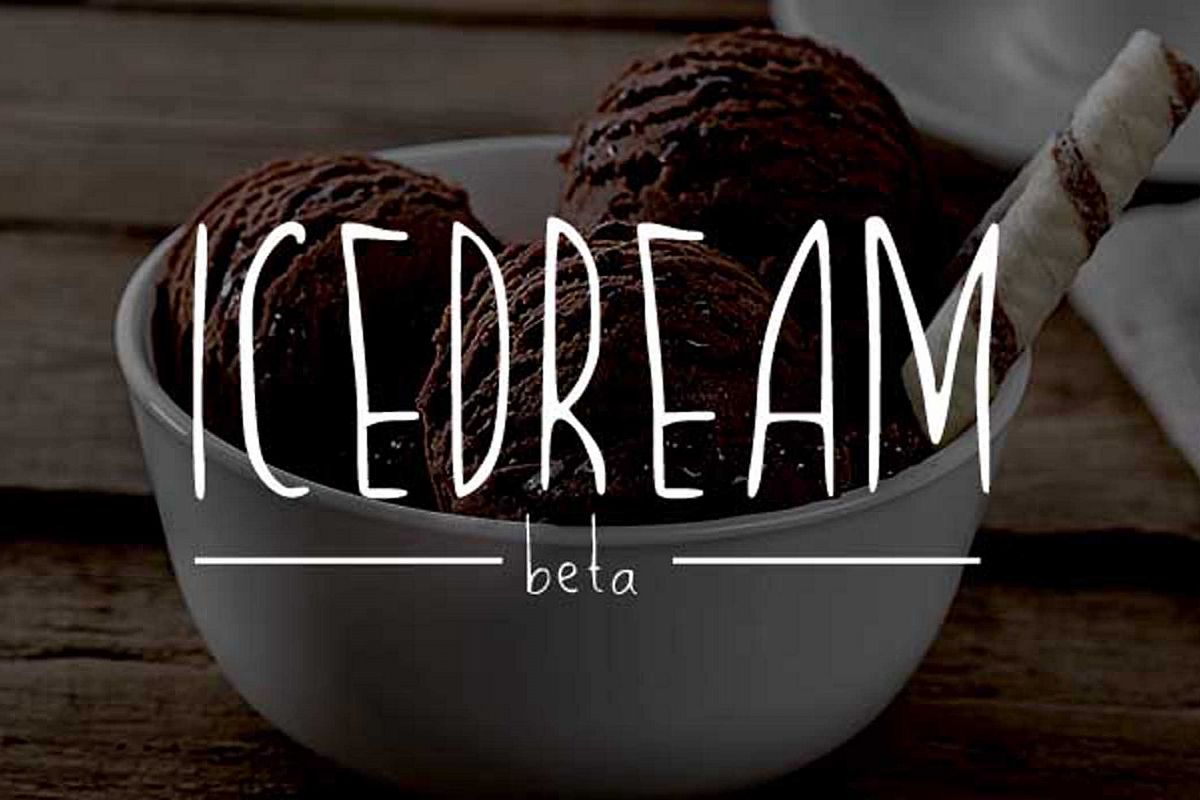
Icedream
icedream-Medium
This is a new font basicly on handwriting type with condensed mode. Can be used for many designs, such as logo design, branding design, annauncement, packaging, and many more.